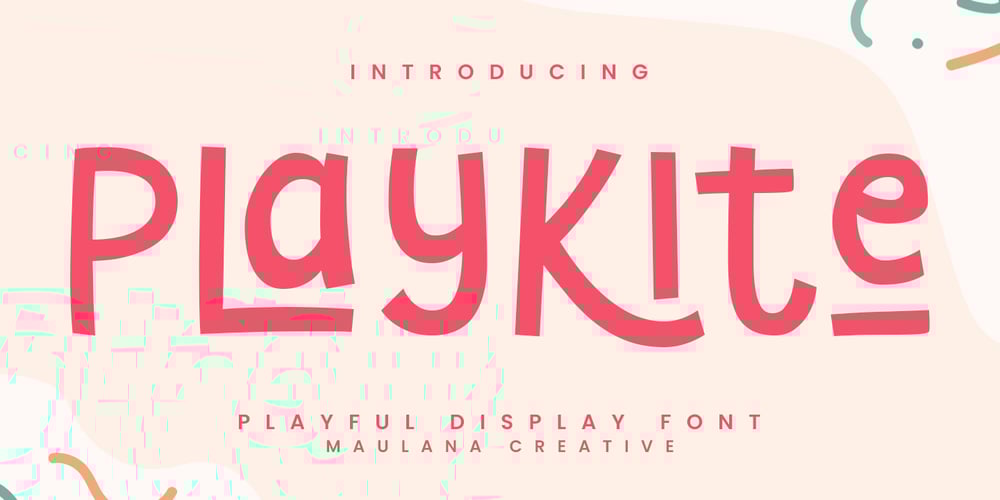
MC Playkite Font Family was designed by Gilang Maulana and published by Maulana Creative. MC Playkite contains 1 styles and family package options. Playkite playful display font. Heavy stroke, fun character with a bit of ligatures. To give you an extra creative work. Playkite playful display font support multilingual more than 100+ language. This font is good for logo design, Social media, Movie Titles, Books Titles, a short text even a long text letter and good for your secondary text font with script or serif. Make a stunning work with Playkite playful display font.